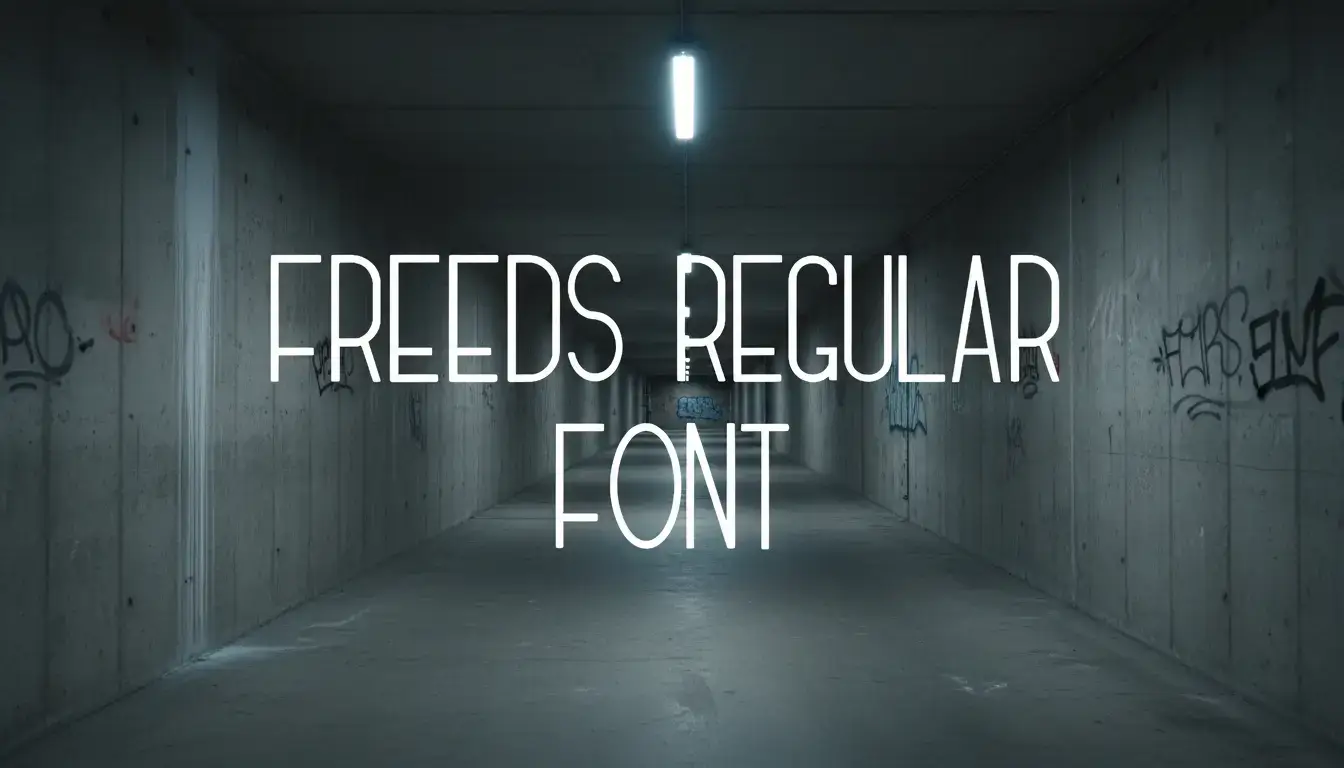
Freeds is a sleek, modern sans-serif display typeface designed by Refialdi Dwi Putranto and published through the Monoco Type Foundry. It is structured specifically for high-impact visual media, utilizing a bold presence to ground short, punchy strings of text.
Freeds
Freeds is a sans serif font created by Refialdi Dwi Putranto and released through Monocotype Studio (2018).
- Designer: Refialdi Dwi Putranto
- Publisher: Monocotype Studio